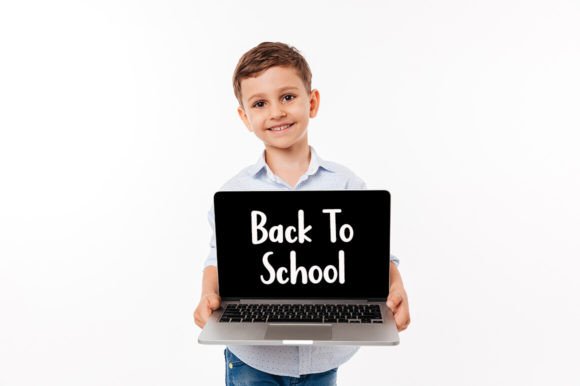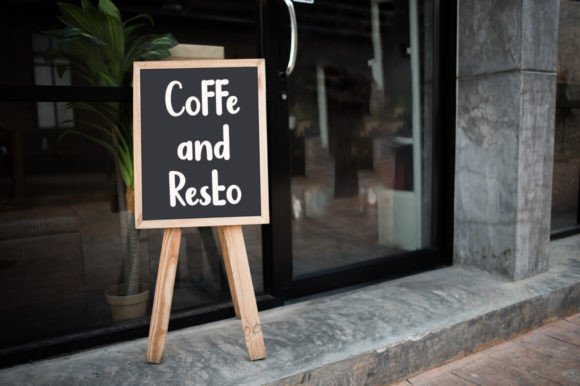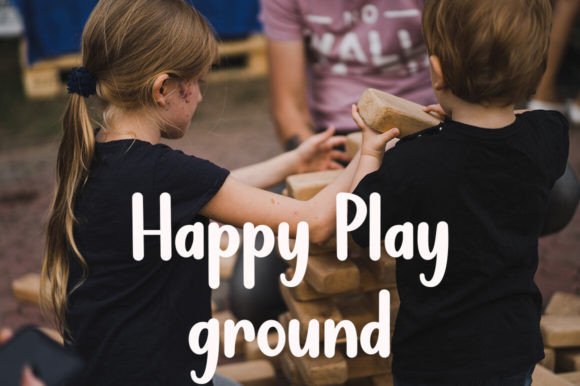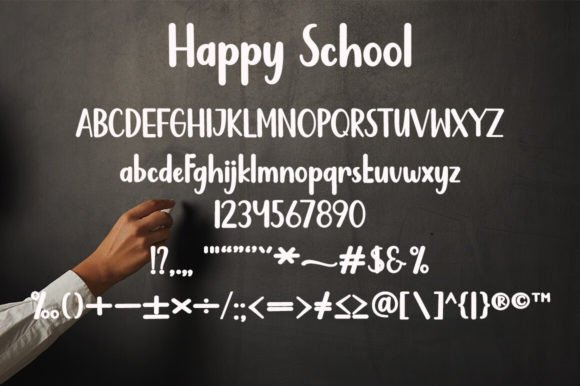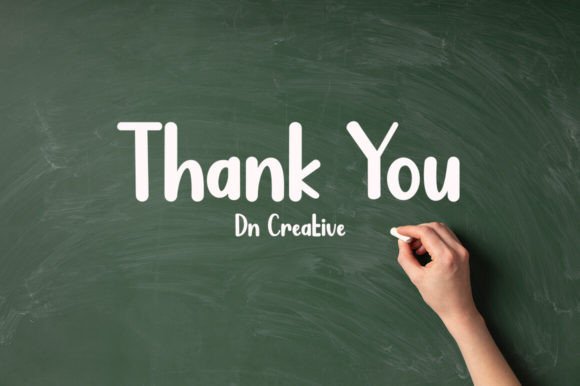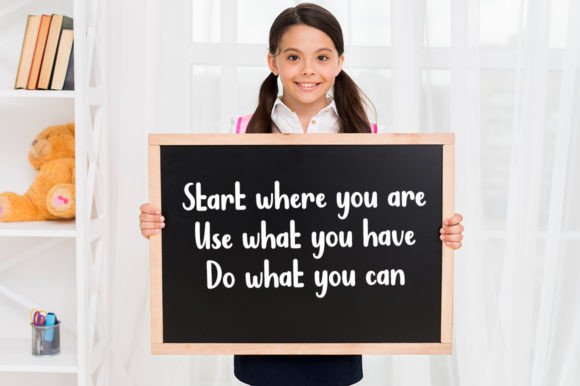
Introducing Happy School Font: A Friendly Handwritten Sans for Creative Projects
Are you on the hunt for a font that’s as playful as it is versatile? Look no further than Happy School Font, a delightful handwritten sans that is sure to bring a smile to your face. This charming font comes in two exciting versions: a regular style and a bouncy variant that adds an extra layer of whimsy to your text. In this article, we’ll dive into the world of Happy School Font, exploring its features, uses, and how it can elevate your creative projects, especially those targeting kids and children.
The Features of Happy School Font
Happy School Font is not just any ordinary font. Its friendly and approachable style makes it perfect for a wide range of applications. Here are some of its standout features:
- Dual Versions: The font comes in two versions: a regular, clean handwritten sans and a bouncy version that adds a playful twist to your text.
- Versatility: You can combine both the regular and bouncy fonts in the same word, creating a unique and eye-catching effect that’s sure to captivate your audience.
- Cute and Interesting: The combination of the regular and bouncy fonts allows you to add a touch of cuteness and interest to your words, making them stand out.
Uses of Happy School Font
The versatility of Happy School Font makes it an excellent choice for various creative projects. Here are some of the many ways you can use this delightful font:
- Book Covers: Create eye-catching book covers for children’s books, making them more appealing to young readers.
- Merchandise: Design fun and engaging merchandise such as t-shirts, stickers, and stationery that kids will love.
- Quotes and Posters: Add a playful touch to inspirational quotes and posters aimed at children, making them more impactful.
- Branding: Use Happy School Font for branding projects targeting kids and children, ensuring your brand comes across as friendly and approachable.
Complementing Happy School Font with Cute Illustrations
Why Designers and Crafters Love Happy School Font
Designers and crafters are always on the lookout for fonts that can help them create unique and captivating projects. Happy School Font offers a unique combination of playfulness and versatility, making it a favorite among creatives. Here are a few reasons why:
- Easy to Read: Despite its playful nature, Happy School Font remains easy to read, making it suitable for both titles and body text.
- Customizable: The ability to mix and match the regular and bouncy versions allows for endless customization options.
Happy School Font is a fantastic addition to any designer’s or crafter’s toolkit, especially for those working on projects for kids and children. Its friendly and playful style, combined with its versatility and the availability of free cute illustrations, makes it an excellent choice for a wide range of creative projects. Whether you’re designing book covers, merchandise, quotes, or branding materials, Happy School Font is sure to bring a touch of happiness and whimsy to your work. So why not give it a try and see how it can elevate your designs?